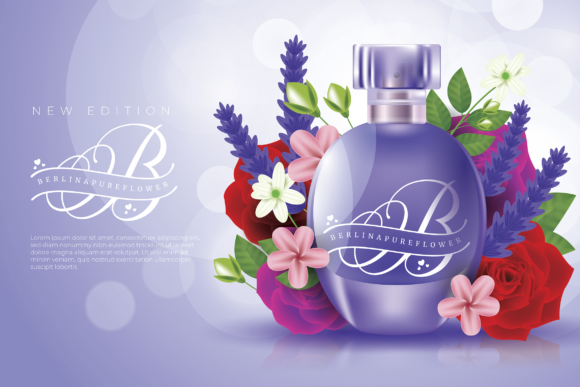
Molidia Monogram Font
Molidia Monogram iis a gorgeous monogram font. It maintains its classy calligraphic influences while feeling contemporary and fresh. Fall in love with its authentic feel and use it to create gorgeous wedding invitations, beautiful stationary art, eye-catching social media posts, and cute greeting cards.